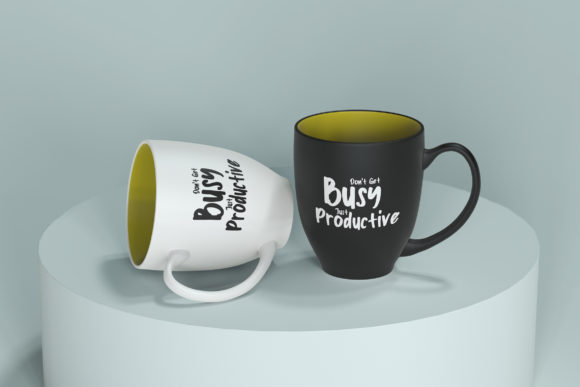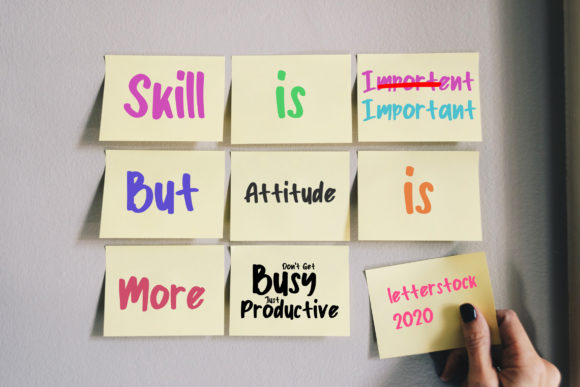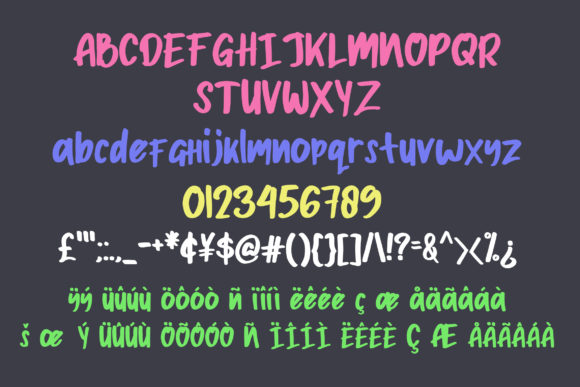
Introducing Apija Font: The Fun and Cute Display Font for Your Design Projects
Are you looking for a font that can add a touch of friendliness and playfulness to your design projects? Look no further than Apija Font! This fun and cute display font is designed to elevate a wide range of design projects to the highest level, making it perfect for designers and crafters who want to create visually appealing and engaging designs.
What Makes Apija Font Special?
Apija Font is a unique and creative font that is designed to bring a sense of joy and friendliness to your designs. Its incredible friendly feel makes it perfect for a variety of design projects, including branding, headings, wedding designs, invitations, signatures, logos, labels, and much more! Whether you’re creating a logo for a children’s brand or designing an invitation for a wedding, Apija Font is the perfect choice.
Key Features of Apija Font
- Fun and Cute Design: Apija Font has a fun and cute design that is sure to grab attention and add a touch of playfulness to your designs.
- Display Font: Apija Font is a display font, making it perfect for headings, titles, and other design elements that need to stand out.
- Friendliness: The font has an incredible friendly feel, making it perfect for designs that need to convey a sense of approachability and warmth.
- Versatility: Apija Font can be used for a wide range of design projects, from branding and logos to wedding designs and invitations.
How to Use Apija Font in Your Design Projects
- Branding: Use Apija Font to create a fun and playful logo for your brand that will help you stand out from the competition.
- Wedding Designs: Add a touch of whimsy and romance to your wedding designs with Apija Font, perfect for invitations, programs, and more.
- Invitations: Use Apija Font to create eye-catching and engaging invitations for parties, events, and more.
- Signatures: Add a personal touch to your email signatures or business cards with Apija Font.
- Logos: Create a fun and playful logo for your business or brand with Apija Font.
- Labels: Use Apija Font to create custom labels for your products or packaging.
Why Designers and Crafters Love Apija Font
- Unique Design: Apija Font has a unique and creative design that sets it apart from other fonts.
- Versatility: Apija Font can be used for a wide range of design projects, making it a great addition to any designer’s toolkit.
In conclusion, Apija Font is a fun and cute display font that is perfect for designers and crafters who want to add a touch of friendliness and playfulness to their design projects. With its unique and creative design, versatility, and ease of use, Apija Font is a great addition to any designer’s toolkit. Whether you’re creating a logo, designing an invitation, or crafting a label, Apija Font is the perfect choice.